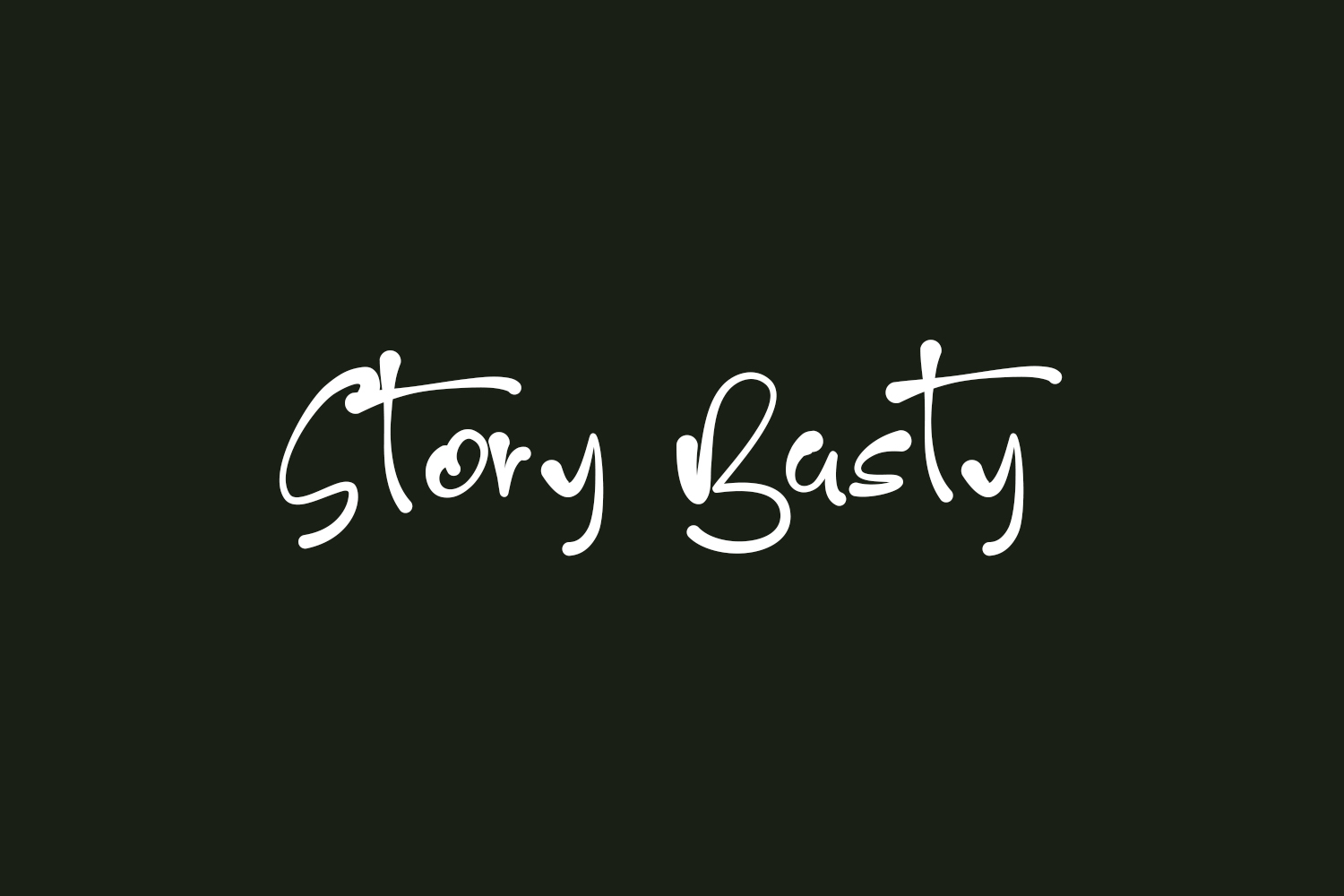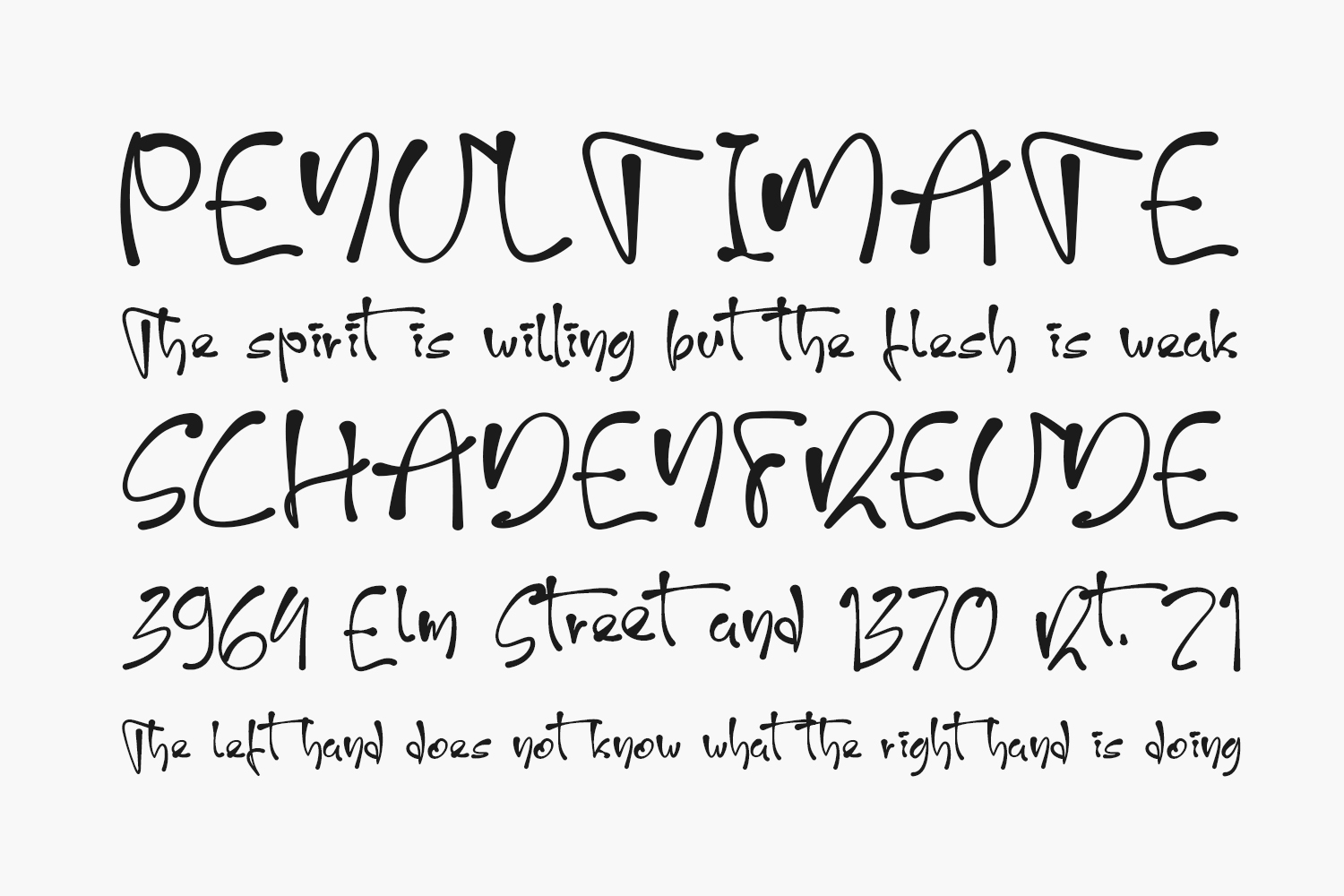
Story Basty Free Font is a quirky, sloppy and informal handwritten font. Its informal style and casual vibe will make this font a go-to choice for each of the creations that require a relaxed touch. Story Basty Free Font was designed by Twin Rizki and is free for personal use only. Please purchase the full version for commercial use.